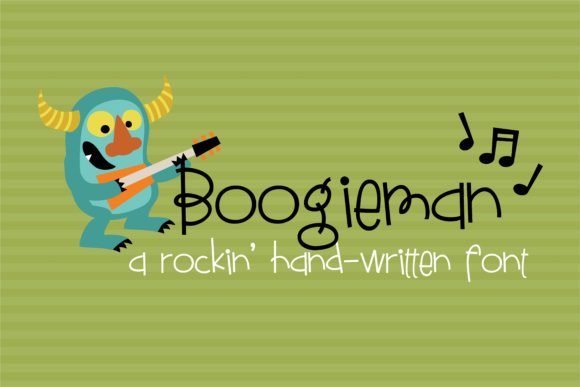
The Boogieman Font: Adding a Dash of Whimsy to Your Designs
Boogieman is a youthful handwritten font, perfect for headlines in your most jovial projects! This font has a bit of toggle to it which gives it a dancing look, so your designs will have tons of vibrancy! It’s like a breath of fresh air for your typography.
- ✨ The playful, energetic vibe it brings to any design
- ✅ Easy to read, even in larger blocks of text
- 💃 The dancing effect created by its unique letterforms
- 🎉 Perfect for headlines, titles, and any place you want to add a pop of personality
⚠️ While Boogieman is incredibly versatile, there are a few things to keep in mind. For instance, its highly stylized nature means it might not be the best choice for very long blocks of text or for designs that require a more formal tone. Additionally, some of the more intricate details might not render as well at very small sizes.
🤔 Another thing to consider is that, because of its uniqueness, it might not pair well with every font. You’ll want to choose complementary fonts carefully to ensure your design doesn’t end up looking chaotic.
One of the exciting aspects of Boogieman, like many modern fonts, is its use of OpenType features. These features allow for advanced typographic control, including ligatures, stylistic alternates, and more. By accessing the ‘Character’ panel in Adobe applications, you can explore these features and customize your text even further. For instance, you might find alternate glyphs that offer different versions of letters or punctuation, allowing you to add even more personality to your design.
While the origins of Boogieman might be shrouded in mystery, it’s clear that its designer was on a mission to create something fun, something that would inject a bit of whimsy into the world of typography. Perhaps inspired by childhood tales of mythical creatures, the designer aimed to capture the essence of playfulness and youthfulness in a font that could be used across a variety of projects.
Q: Is Boogieman suitable for body text?
A: While Boogieman is primarily designed for headlines and titles, it can be used for short blocks of body text. However, for very long texts, a more readable font might be preferable.